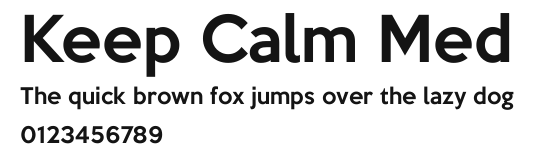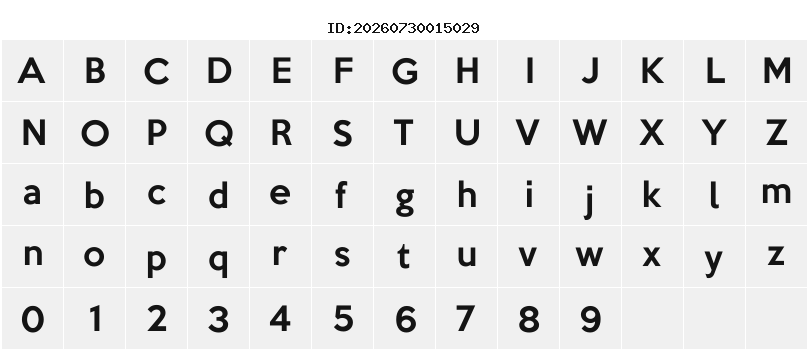
• Font Name: Keep Calm Med
• Designer: Keith Bates
• Description: Keep Calm is a high quality font based on the twelve available uppercase letters of the 'Keep Calm and Carry On' poster, and on similar lettering from the other two posters in the original series.
Keep Calm Med.ttf is a modern, elegant sans-serif font designed for ultimate readability and visual harmony. Perfect for branding, headlines, web design, and print materials.